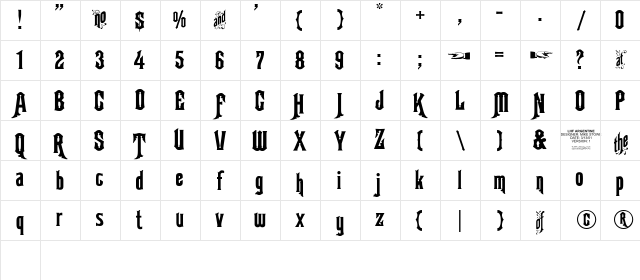
LHFArgentineSolid Medium Free Font
LHFArgentineSolid Medium
Design Context for LHFArgentineSolid
LHFArgentineSolid is a composed and adaptable typeface that performs quietly and consistently across a wide range of design contexts.